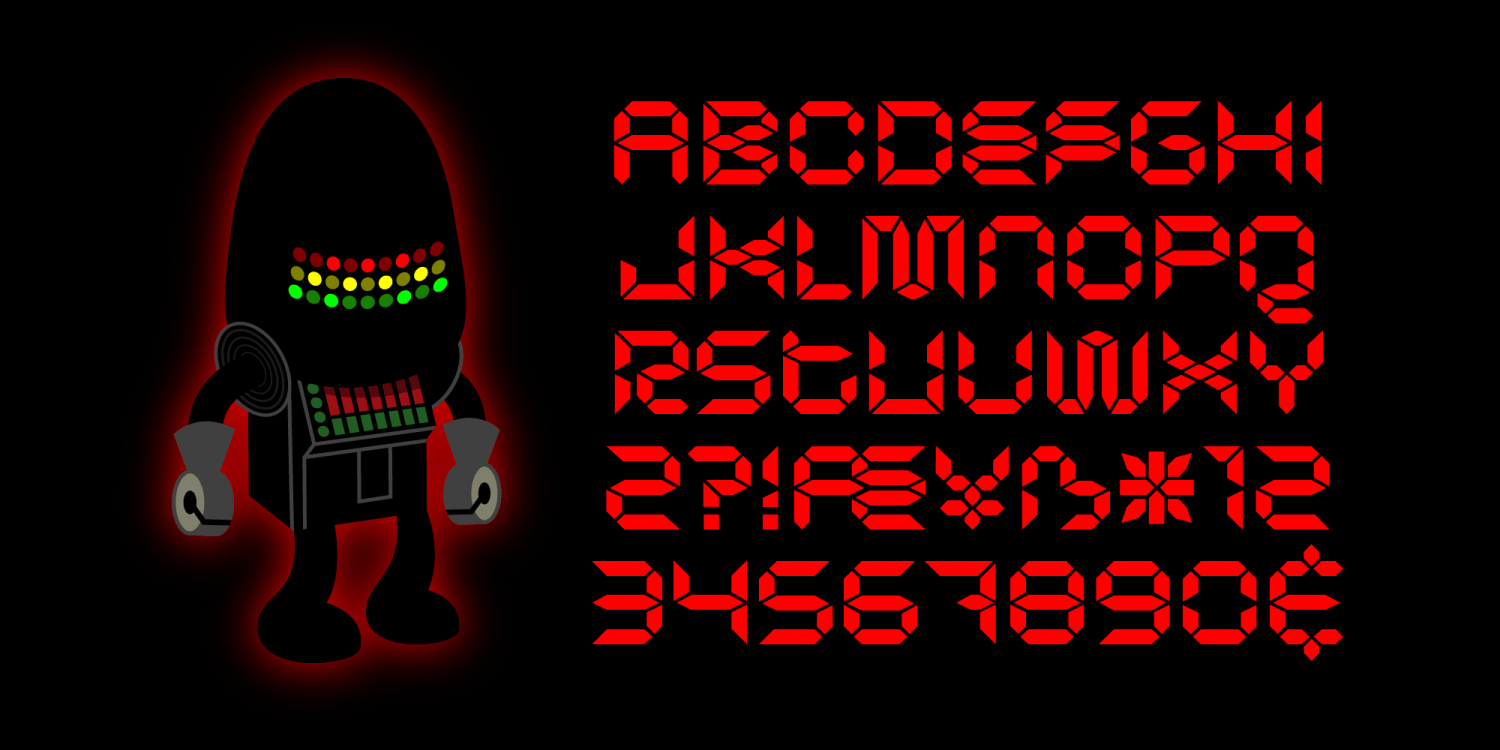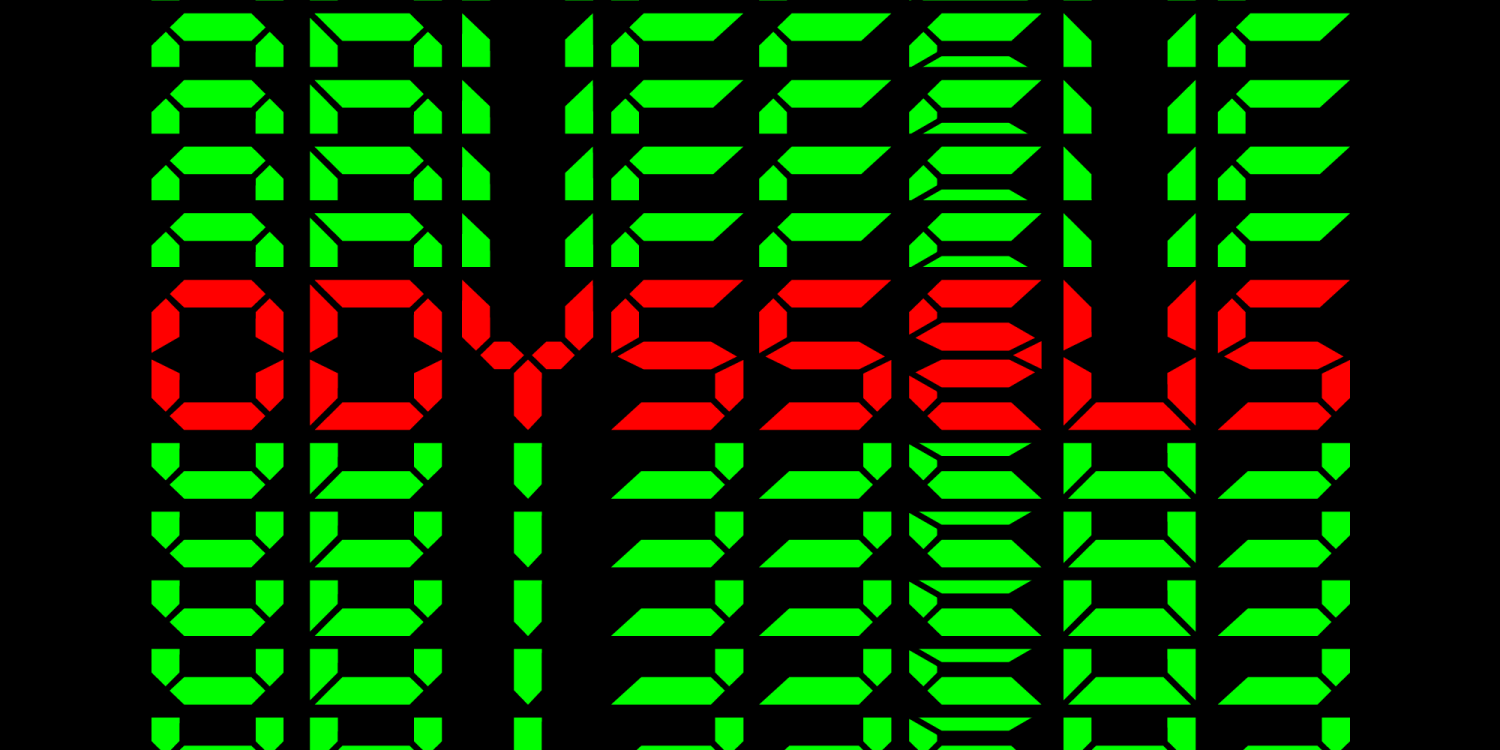
HomeFont BrosFuturisticOdysseus FuturisticSpecial Effect Odysseus FacebookXPinterestWhatsApp 1 of 2 About Odysseus He's the "bun" to his "burger", the "bubble" to his "yum", the "boom" to his "box". Odysseus 5 is the side man to Runtron 1983. He might look like a little baby equalizer with arms and legs,…  DOWNLOAD NOW People also explored Dunny Fuller Font Belpast Script Font Belisha Font Shopping Market Font Rushtard Brush Font Riana Maria Font Willya Font Sheena Font Forgiven Script Font 274 0 TagsOdysseus Font Previous articleCrimson SkylineNext articleRomina LEAVE A REPLY Cancel reply Comment: Please enter your comment! Name:* Please enter your name here Email:* You have entered an incorrect email address! Please enter your email address here Website: Save my name, email, and website in this browser for the next time I comment. Personal Use Free GoodFay Personal Use Free Read more about this font Baveuse Personal Use Free Read more about this font Pumpkins Candles Personal Use Free Read more about this font Huntry Personal Use Free Read more about this font BLOG Fonts That Capture the Spirit of New York City New York City is more than just a place—it’s an experience, a rhythm, a visual language... Top 7 Google Fonts Alternatives for Faster and Privacy-Friendly Web Design (2025) Elegant Wedding Invitation Fonts – Handwritten & Script Fonts Free vs Paid Fonts: Why Investing in Premium Fonts Is Worth It